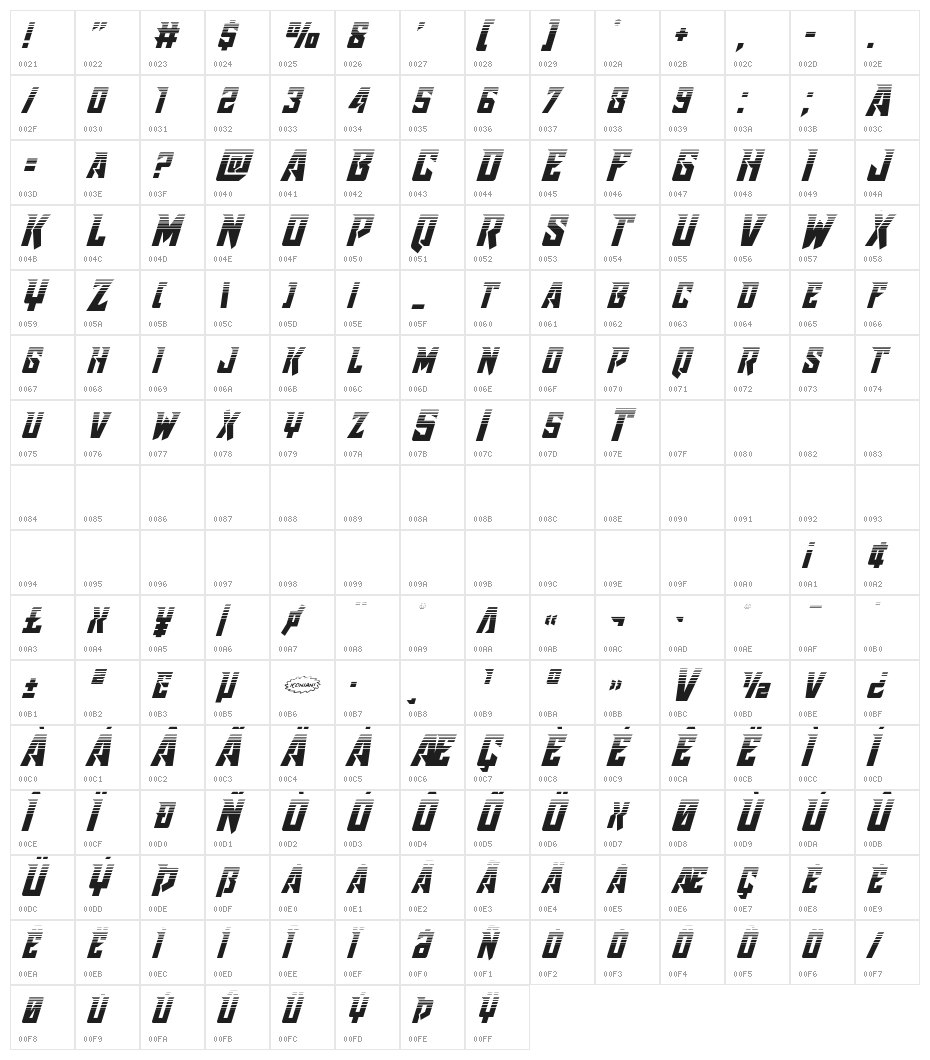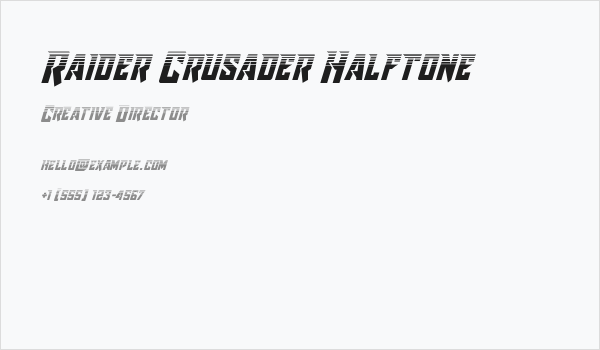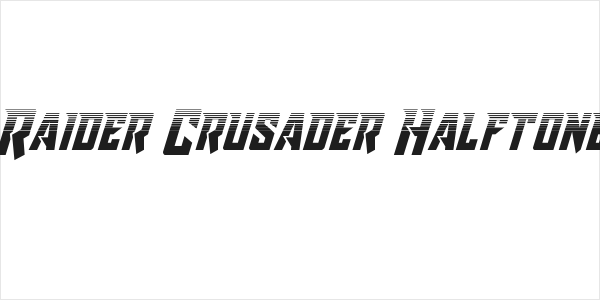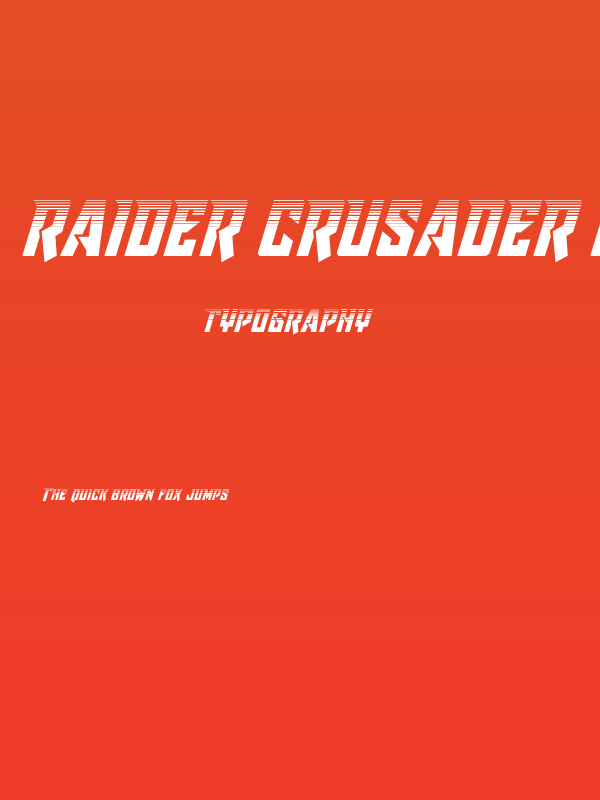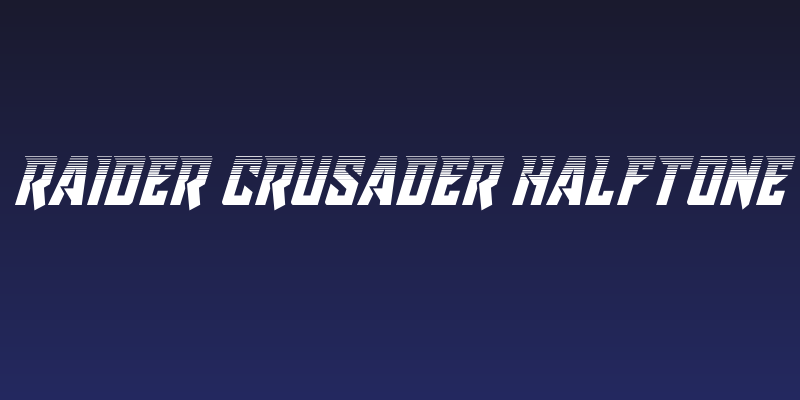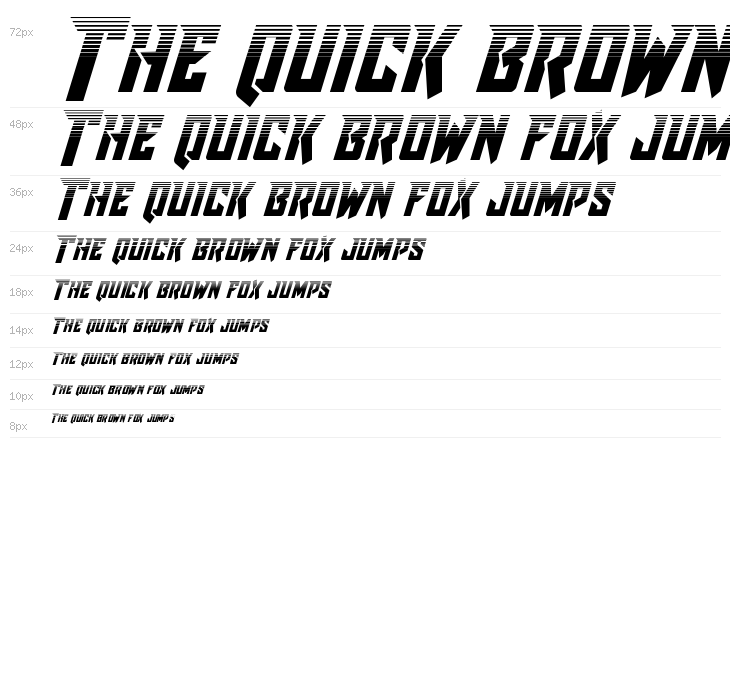
Raider Crusader Halftone Font
Raider Crusader Halftone Description
This font features a bold, dynamic style with a distinct halftone effect that gives it a sense of movement and energy. The uppercase letters are designed with sharp angles and a slanted orientation, creating a sense of speed and modernity. The halftone pattern is integrated into the top portion of each character, adding a unique texture and visual interest. The numbers and special characters follow the same design principles, ensuring consistency across all glyphs. This font is particularly striking due to its high contrast between the solid black areas and the halftone sections, making it ideal for attention-grabbing designs.
| Proposed Projects | Ideal for sports branding, dynamic posters, video game titles, and any project needing a modern, energetic look. |